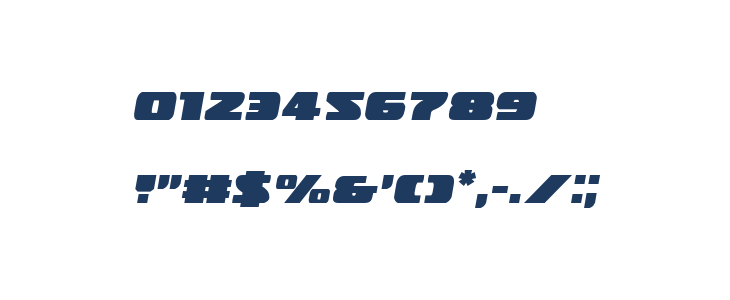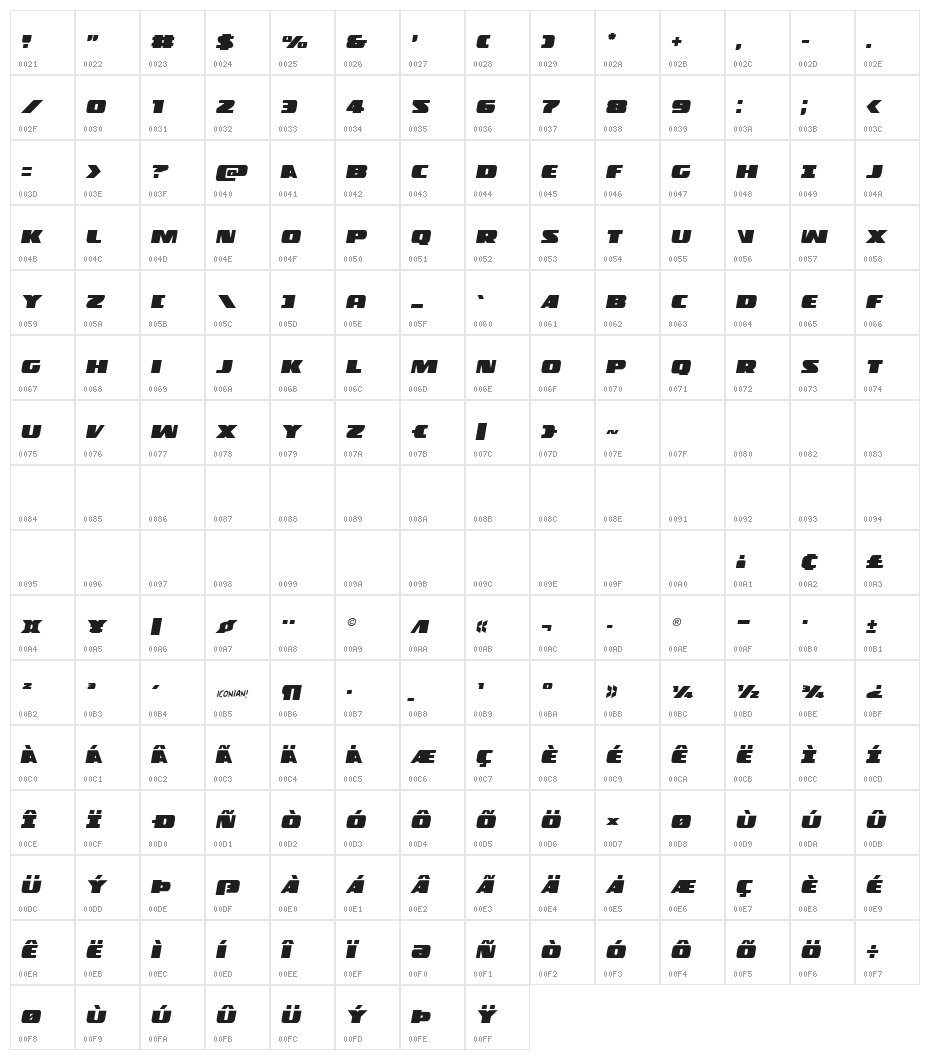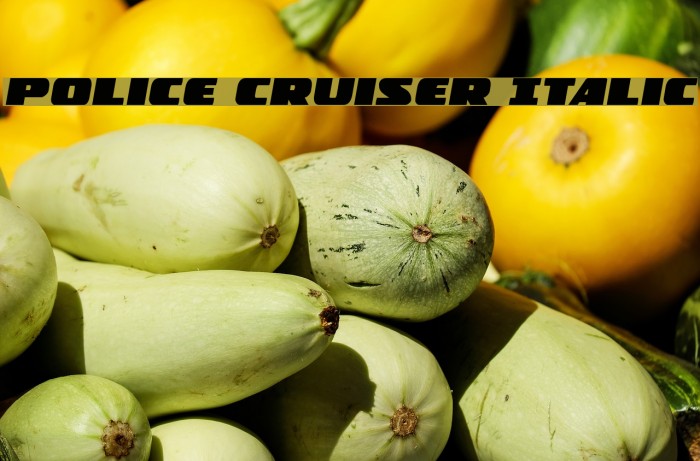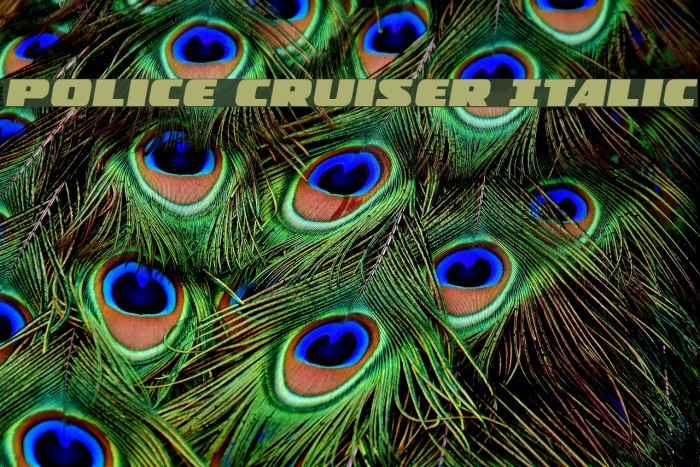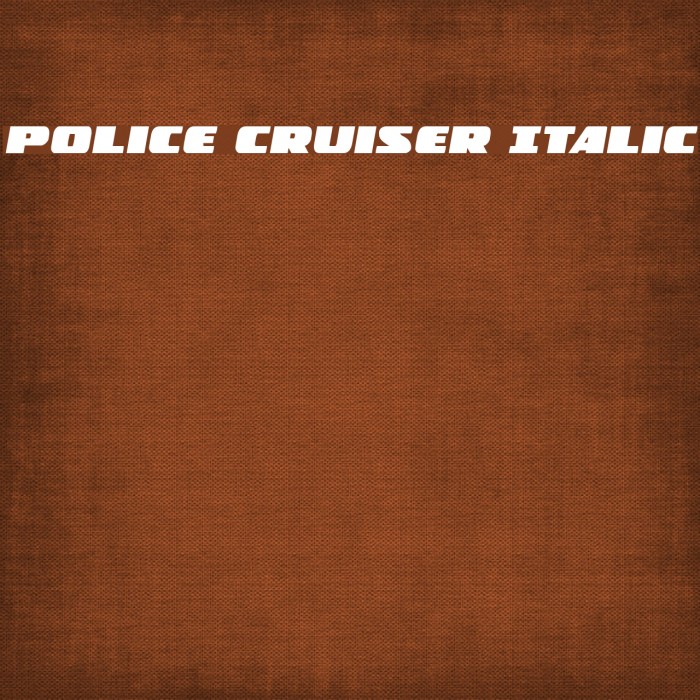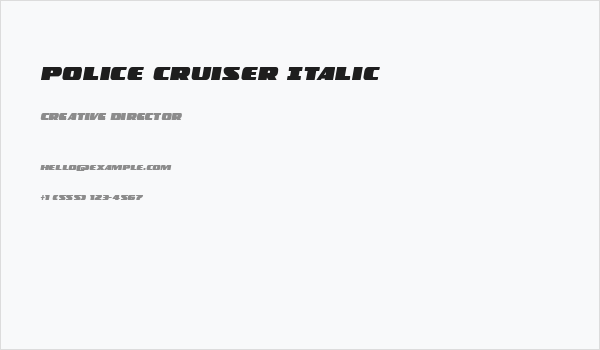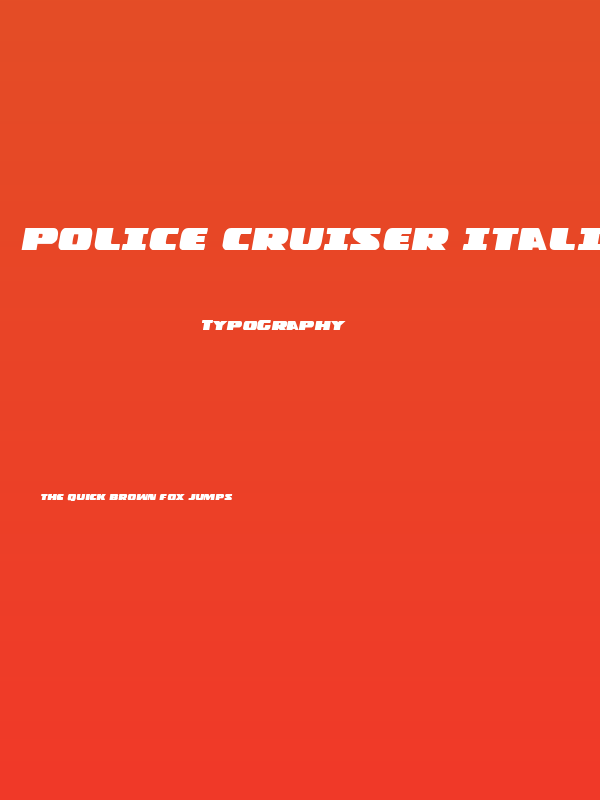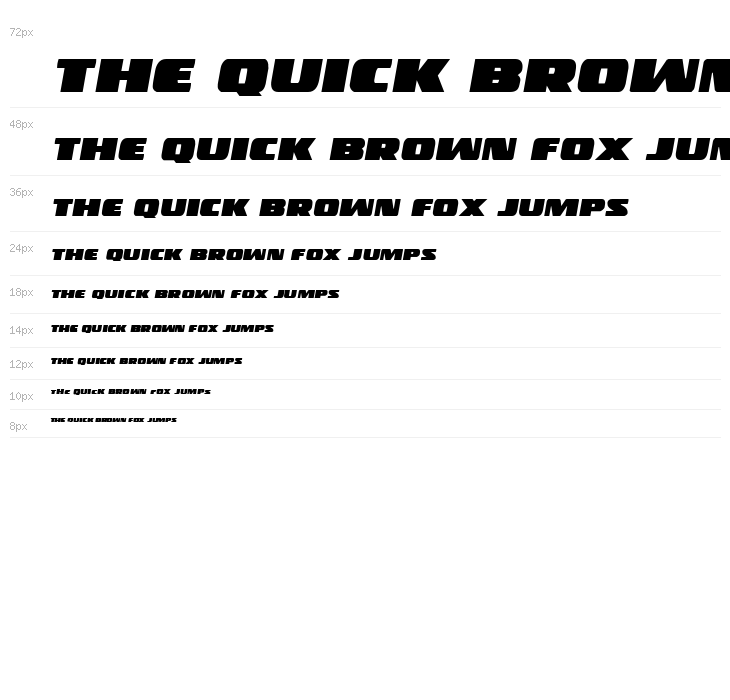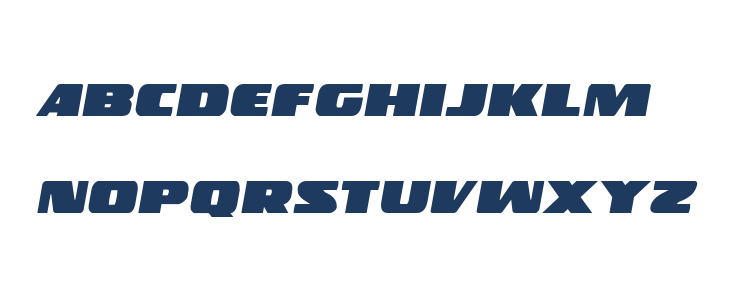
Police Cruiser Italic Font
Police Cruiser Italic Description
This font features a bold and dynamic style with a strong italic slant, giving it a sense of motion and urgency. The characters are wide and blocky, with consistent stroke thickness that conveys a robust and sturdy appearance. The uppercase letters are particularly striking, with sharp angles and a slightly condensed form that enhances readability. The numerals and special characters maintain the same boldness and angularity, ensuring a cohesive look across all elements. This font's design is reminiscent of retro or vintage styles, yet it maintains a modern edge with its clean lines and impactful presence.